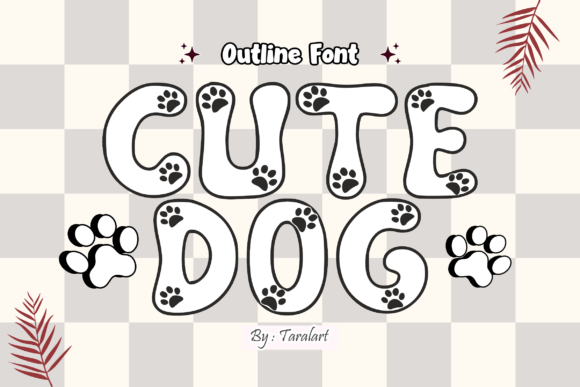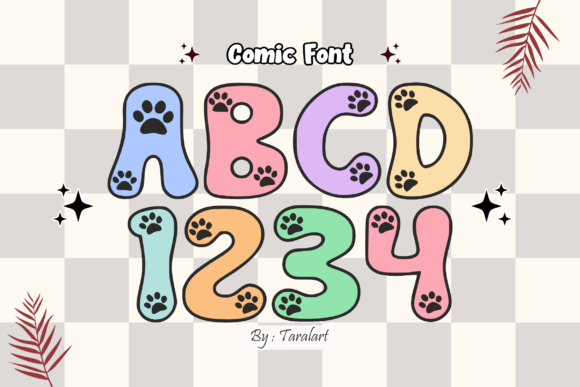
Babydog Regular Font: The Playful and Adorably Unique Cartoon Font
Are you tired of using the same old fonts for your creative projects? Look no further than the Babydog Regular Font, a charming and contemporary decorative cartoon font that’s sure to bring a smile to your face. With its playful energy and irresistible cuteness, this font is perfect for designers and crafters looking to add a touch of whimsy to their work.
The Inspiration Behind Babydog Regular Font
The Babydog Regular Font is a delightful creation that’s inspired by the joy and sweetness of a cartoon dog. Every character in this font is infused with a delightful sweetness and accented with lovable dog paw details, giving it a joyful personality that’s both fun and distinctive. The font’s spirited design makes it effortlessly adaptable to a wide range of creative projects, from sublimation prints to animations and comic titles.
What Makes Babydog Regular Font So Special?
So, what sets the Babydog Regular Font apart from other fonts out there? Here are just a few of its unique features:
- Playful Energy: The Babydog Regular Font is full of energy and playfulness, making it perfect for projects that require a fun and lively touch.
- Adorably Unique: This font is truly one-of-a-kind, with its lovable dog paw details and sweet character designs.
- Versatile: The Babydog Regular Font can be used for a wide range of creative projects, from sublimation prints to animations and comic titles.
- Easy to Read: Despite its playful design, the Babydog Regular Font is easy to read and understand, making it perfect for use in titles, headings, and body text.
Using Babydog Regular Font in Your Creative Projects
The Babydog Regular Font is perfect for a wide range of creative projects, including:
- Sublimation Prints: Add a playful touch to your sublimation prints for t-shirts, mugs, tote bags, and more.
- Animations: Bring your animations to life with the Babydog Regular Font’s fun and lively design.
- Comic Titles: Add a touch of whimsy to your comic titles and make them stand out from the crowd.
- Signage: Use the Babydog Regular Font to create eye-catching signage for your business or event.
Tips for Getting the Most Out of Babydog Regular Font
Here are a few tips for getting the most out of the Babydog Regular Font:
- Experiment with Colors: The Babydog Regular Font looks great in a variety of colors, so don’t be afraid to experiment and find the perfect hue for your project.
- Pair with Other Fonts: Try pairing the Babydog Regular Font with other fonts to create a unique and eye-catching design.
- Use for Headings and Titles: The Babydog Regular Font is perfect for use in headings and titles, where its playful design can really shine.
In conclusion, the Babydog Regular Font is a playful and adorably unique cartoon font that’s perfect for designers and crafters looking to add a touch of whimsy to their creative projects. With its spirited design, lovable dog paw details, and versatility, this font is sure to bring a smile to your face and make your projects stand out from the crowd.